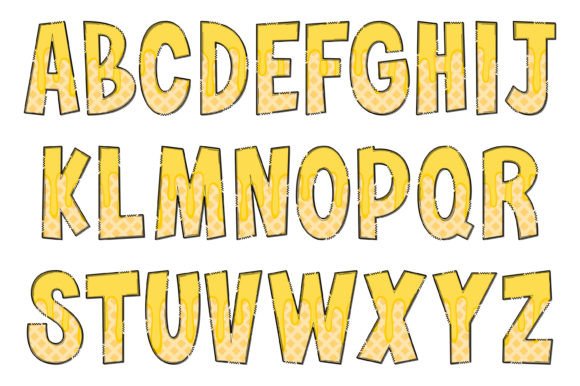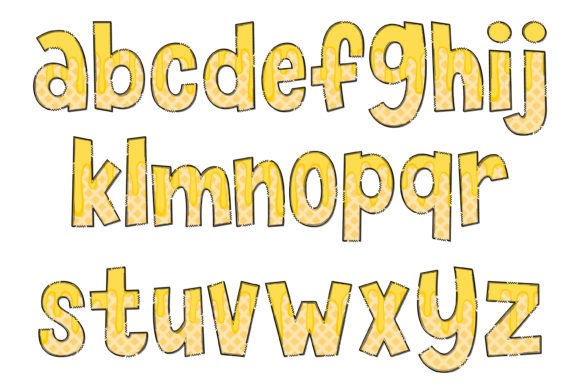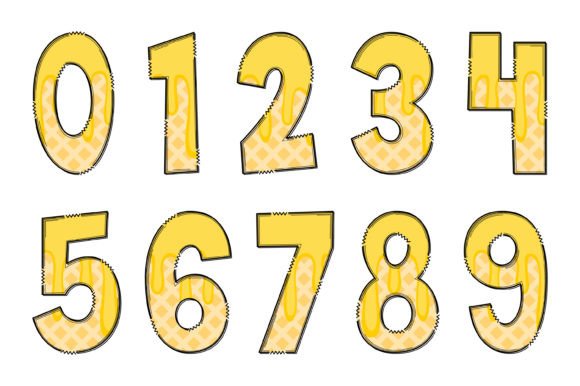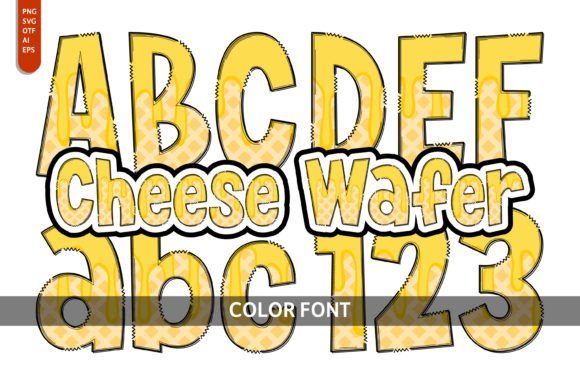
The Perfect Recipe for Whimsical Designs
Have you ever stared at a blank page, pencil in hand, waiting for inspiration to strike? The blank slate can be daunting, but it’s moments like these that remind us why we love design. For some, the answer lies in a dash of creativity, a pinch of color, and a sprinkle of personality – all of which can be found in the delightful Cheese Wafer Font.
Cheese Wafer Font Key Features
- Font Type: Display Font
- Unique Characteristic: Features a unique, hand-drawn aesthetic with a distressed, vintage feel
Designer Review: Cheese Wafer Font
First off, I have to say that I’m a fan of the quirky, playful vibe that the Cheese Wafer Font brings to the table. The whimsical feel is perfect for projects that need a bit of personality, like food labels or children’s packaging. The font’s rounded edges and soft curves make it feel approachable and fun. I also appreciate the fact that it comes in a range of weights, from light to bold, which gives designers a lot of flexibility when it comes to creating visually appealing layouts.
One thing that really stands out about Cheese Wafer Font is its ability to pair well with other fonts. I’ve had success pairing it with clean sans-serifs for a nice contrast in texture. The font also holds up well in both digital and print formats, which is a major plus.
- Quirky, playful vibe
- Rounded edges and soft curves
- Range of weights for flexibility
- Pairs well with other fonts
- Works well in digital and print formats
- May not be suitable for formal or corporate projects
- Could be overwhelmed by bold or busy backgrounds
In terms of overall impression, I’d say that Cheese Wafer Font is a solid choice for designers looking to add some personality to their projects. While it may not be the best fit for every job, it’s a versatile font that can add a lot of character to the right design.
Tips for Getting the Most Out of the Cheese Wafer Font
The Cheese Wafer Font is a fun, playful font that’s perfect for adding a touch of whimsy to your designs. Here are a few tips for getting the most out of it:
- Use it sparingly to add emphasis or create visual interest.
- Pair it with bold, bright colors to make it pop.
The Cheese Wafer Font is perfect for:
Alternatives to Cheese Wafer Font for Designers
Lato is a sans-serif typeface designed by Łukasz Dziedzic. It is a clean, modern font suitable for a wide range of applications, from corporate branding to digital interfaces. Lato is often used in headlines and body text where readability is crucial. Compared to Cheese Wafer Font, Lato has a more geometric structure and is more versatile in terms of font sizes and styles.
Merriweather is a classic serif typeface designed by Eben Sorkin. It is a elegant font that works well in print and digital media. Merriweather is often used in book titles, headings, and body text where a traditional feel is desired. Compared to Cheese Wafer Font, Merriweather has a more formal and sophisticated appearance, making it suitable for high-end branding and editorial content.
Montserrat is a sans-serif typeface designed by Julieta Ulanovsky. It is a urban, modern font inspired by the streets of Montserrat, Argentina. Montserrat is often used in digital interfaces, headlines, and body text where a bold, edgy feel is desired. Compared to Cheese Wafer Font, Montserrat has a more condensed structure and is more suitable for use in smaller font sizes and digital screens.